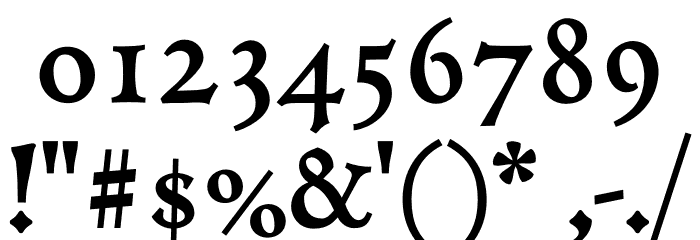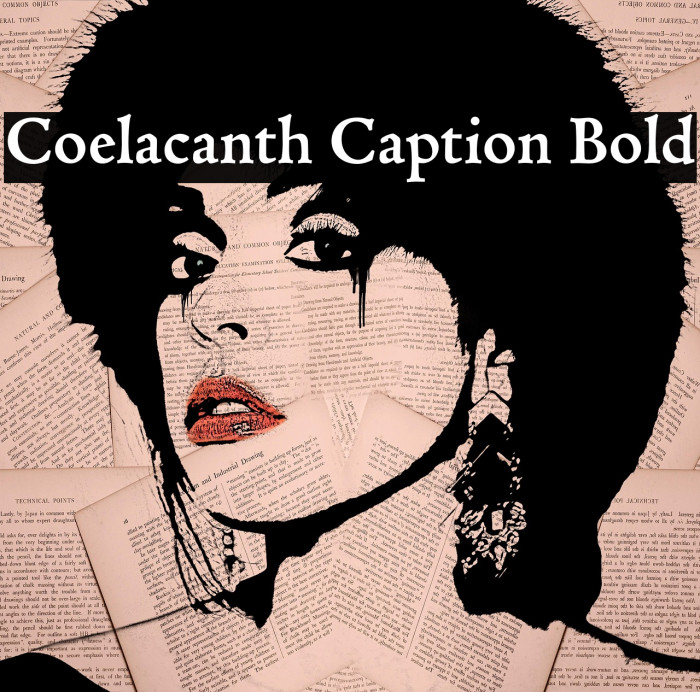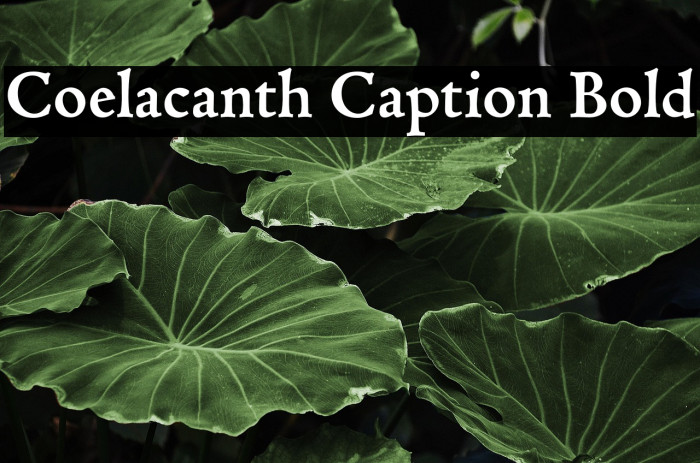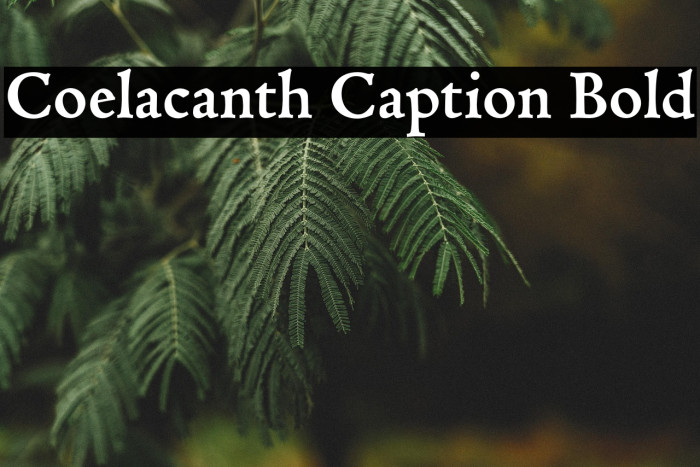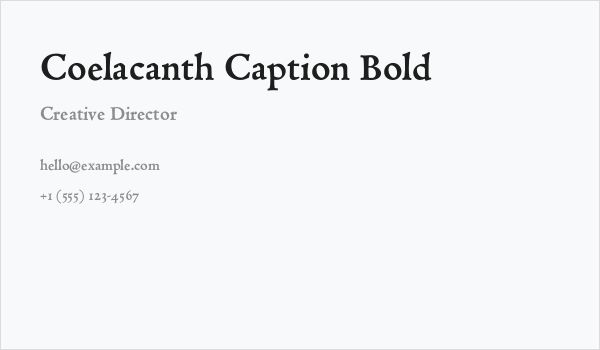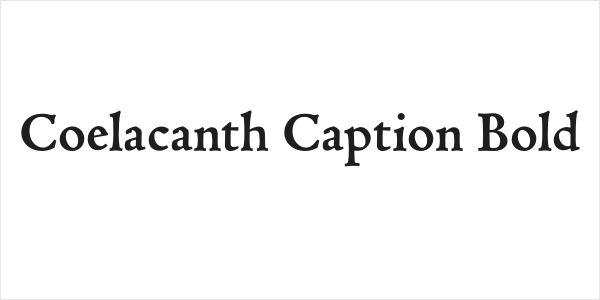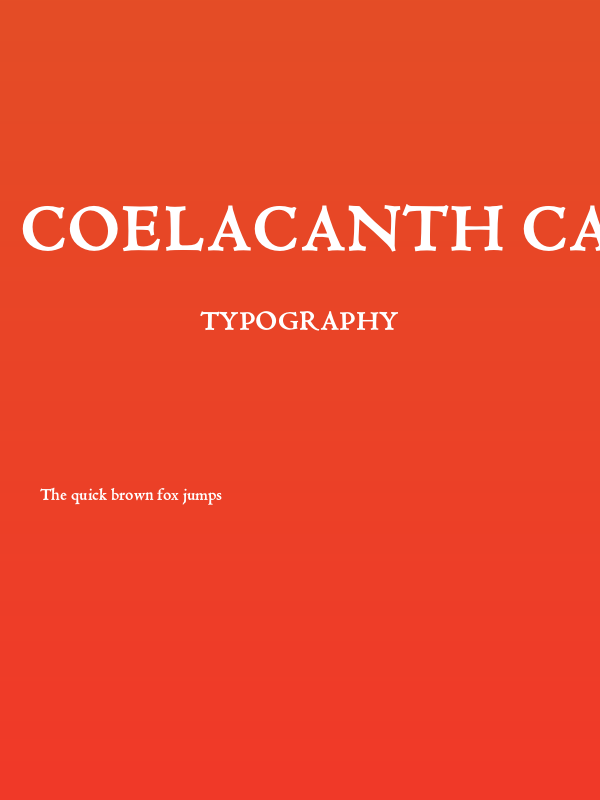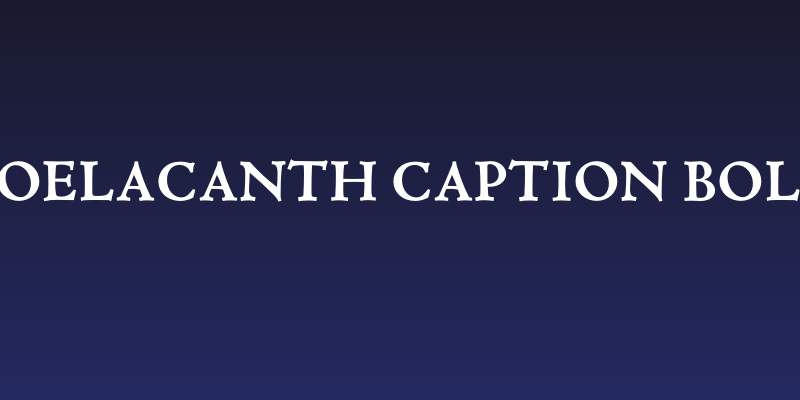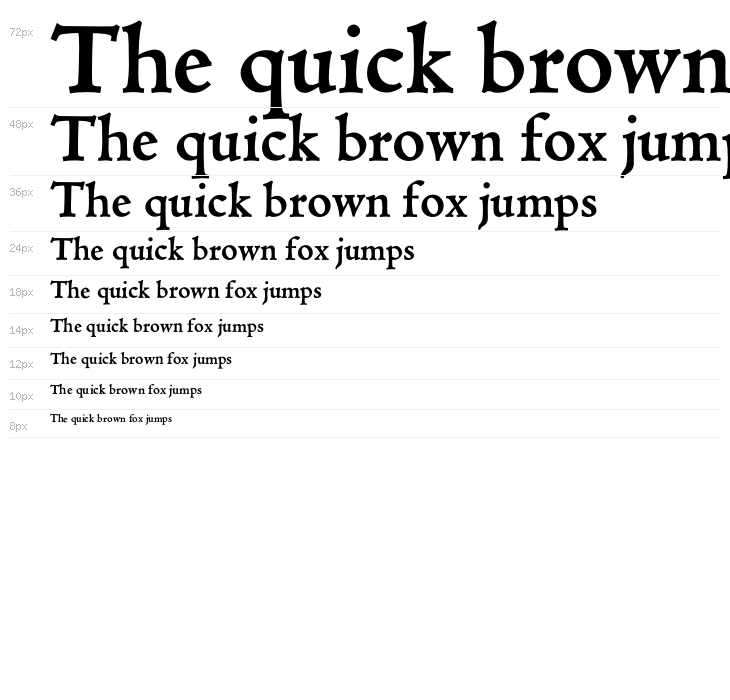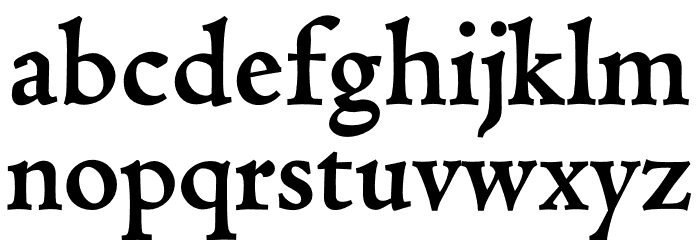
Coelacanth Caption Bold Font
Coelacanth Caption Bold Description
This font features a bold and distinctive serif style, characterized by its strong and slightly irregular strokes that give it a hand-crafted appearance. The uppercase letters are robust and commanding, while the lowercase letters maintain a consistent flow with unique curves and angles. The numerals are bold and easily readable, complementing the overall aesthetic. Special characters are well-integrated, maintaining the font's unique style. This font's boldness and character make it suitable for impactful designs.
Overall StyleClassic, Decorative
Proposed ProjectsIdeal for book covers, posters, branding, and any project requiring a strong, artistic touch.